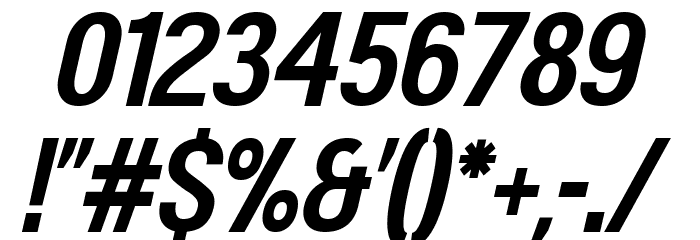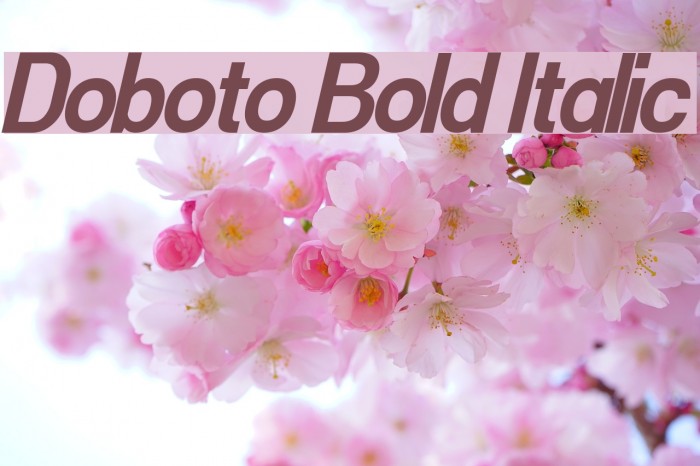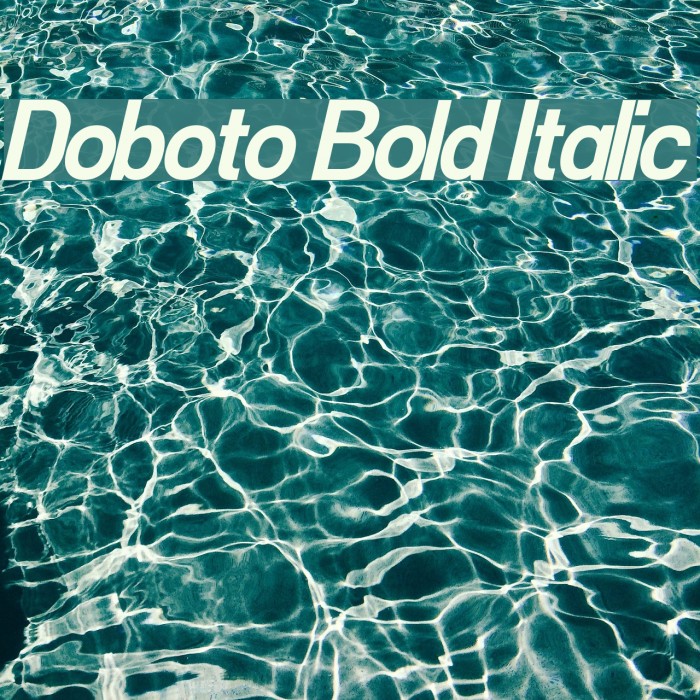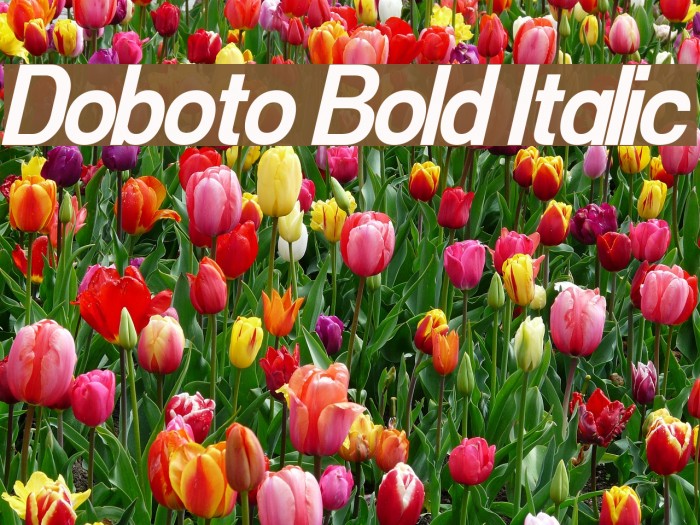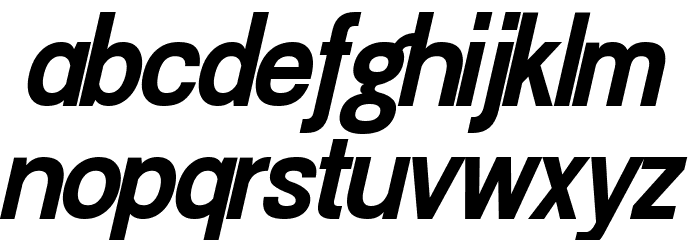
Doboto Bold Italic Font
This font exhibits a bold and italicized style, characterized by its strong, slanted letterforms that convey a sense of dynamism and modernity. The uppercase and lowercase letters maintain a consistent weight, providing a uniform appearance across the alphabet. The numerals and special characters are designed to match the boldness and slant of the letters, ensuring a cohesive look. The strokes are thick, contributing to the font's bold appearance, while the italic slant adds a touch of elegance and movement. This combination of boldness and italics makes it suitable for impactful and attention-grabbing designs.
A bold, italicized font with strong, slanted letterforms for a dynamic and modern look.
• Proposed Projects: Ideal for branding, advertising, headlines, and any project requiring a bold, modern aesthetic.
• Category: Sans-Serif
• Bold: Yes
• Italic: Yes
• Weight: Bold
• Width: Normal
• Character Spacing: Normal
• Contrast: Low
• Overall Style: Modern
• Use Case: Headlines, Logos, Advertising